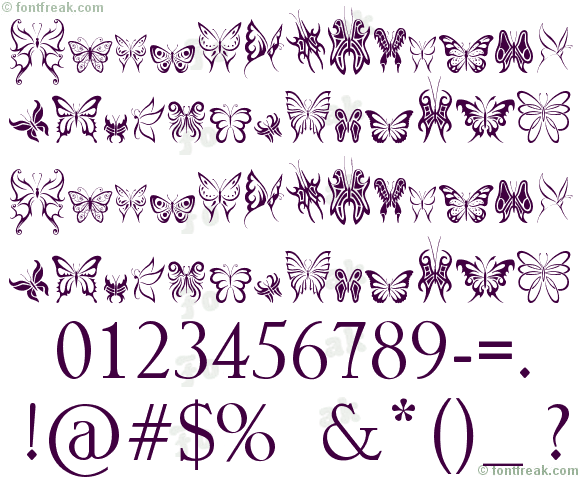
Tribal Butterflies
Tribal Butterflies is a captivating decorative font designed by Jonathan S. Harris, showcasing a unique blend of tribal aesthetics and whimsical butterfly motifs. This font falls into the decorative category, making it an excellent choice for projects that require a touch of artistry and creativity. The visual characteristics of Tribal Butterflies are striking; it features intricate designs with varying stroke weights that create a dynamic and lively appearance. The spacing is thoughtfully balanced, enhancing readability while allowing the decorative elements to shine.
This font is particularly well-suited for a variety of creative applications. It can elevate wedding invitations, adding a romantic and artistic flair that perfectly complements the celebration of love. Additionally, it works wonderfully for movie posters, especially in genres that embrace fantasy or adventure themes, where the tribal motifs can evoke a sense of mystery and intrigue. Restaurant menus that focus on exotic cuisine can also benefit from this font, as it adds a unique touch that captures the essence of diverse cultures. Furthermore, graphic designers and content creators looking for eye-catching visuals for social media posts or branding materials will find this font to be a valuable asset.